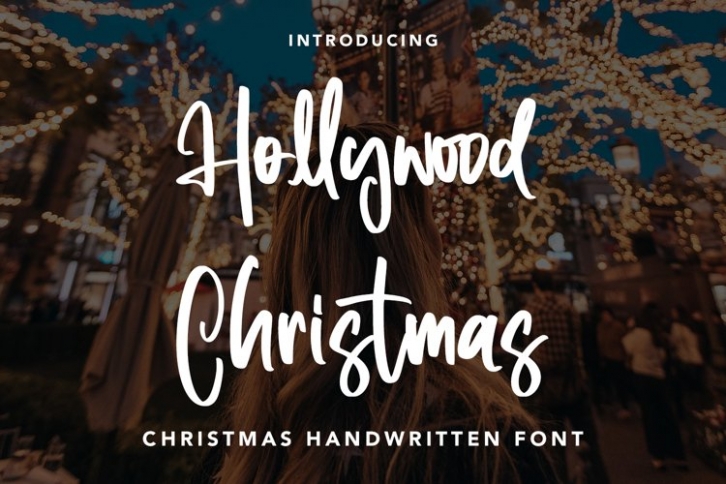
Hollywood Christmas is a gorgeous font that was realeased on December 18, 2021. The font can be used in many style contexts and design environments. Perfect for invitations, magazines, websites, logos, and more! It was designed by plusstore and the file size is 10.95 MB. Thanks for checking out this font!